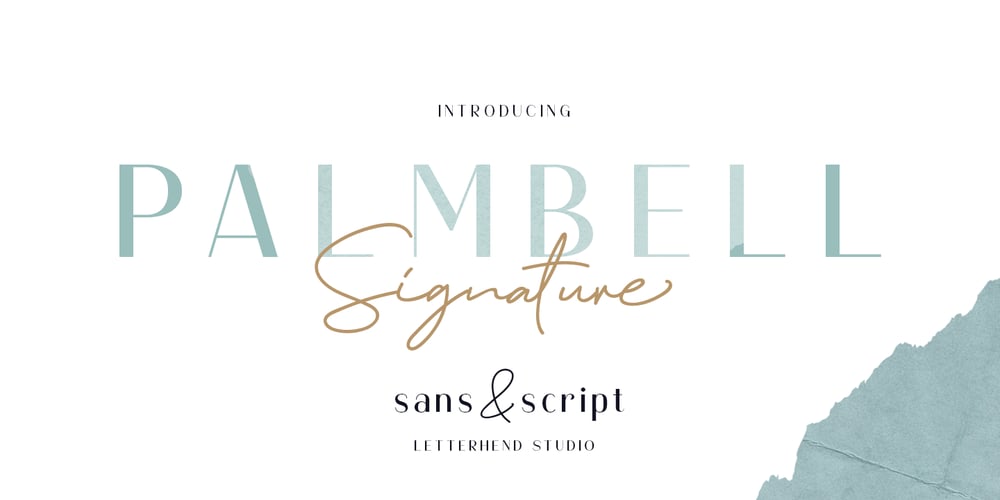
Palmbell Font Family was designed by Hendry Juanda, Sarid Ezra and published by Letterhend. Palmbell contains 2 styles and family package options. Palmbell is a pair of fonts that bring a classy yet casual feel at the same time. The classic sans combined with the natural hand-writing script are the perfect match for you who needs a typeface for headlines, logotype, apparel, invitations, branding, packaging, advertising, and more. This typeface is comes in uppercase, lowercase, punctuation, symbols, numerals, stylistic set alternate, ligatures, etc also support multilingual. We hope you enjoy the font, please feel free to comment if you have any thoughts or feedback. Or simply send me a PM or email me at letterhend@gmail.com